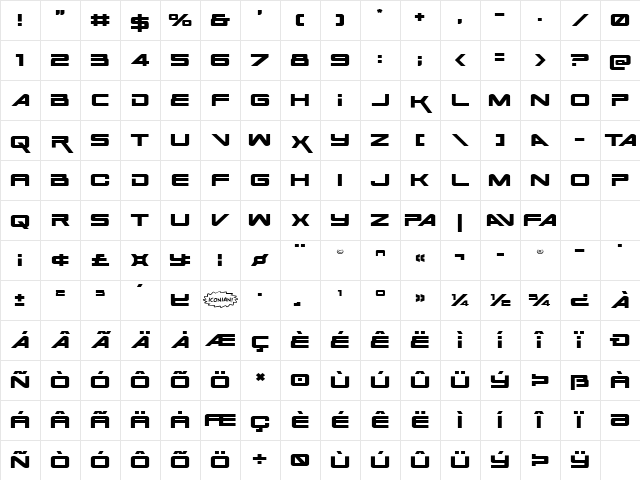
Space Ranger Expanded Free Font
Space Ranger Expanded
Style: Expanded
Space Ranger Family
Complete Space Ranger Expanded glyph index. Displaying only characters natively supported by Space Ranger Expanded font.
Design Context for Space Ranger
Space Ranger is a composed and adaptable typeface that performs quietly and consistently across a wide range of design contexts.